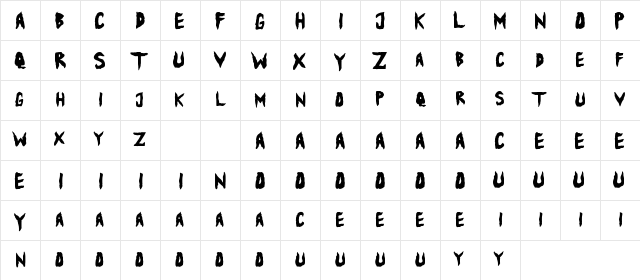
Ballowien Regular
Regular ·  Javatype Studio ·
DesignerJavatype Studio
Design Context for Ballowien Typeface
Ballowien is a composed and adaptable typeface that performs quietly and consistently across a wide range of design contexts.